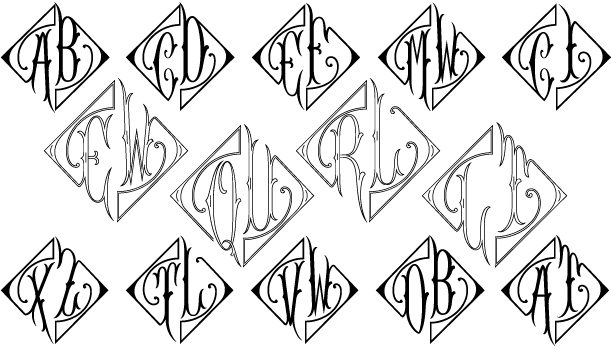
About Diamant Monogram
The inspiration source for Diamant Monogram is a stylishly formal letterset flaring out to create a diamond framework from a vintage embroidery publication. Originally intended to adorn handkerchiefs, it has so many other possibilities. Its obvious diamond…